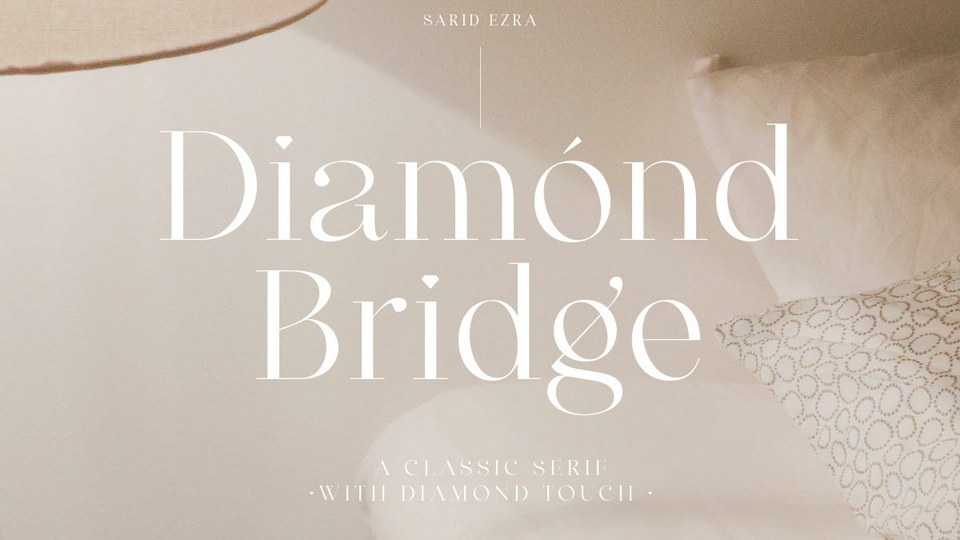
Download Diamond Bridge font, a stylish and elegant authentic serif typeface. Diamond Bridge will elevate a wide range of crafting ideas, from cards, to branding, labels and much more.